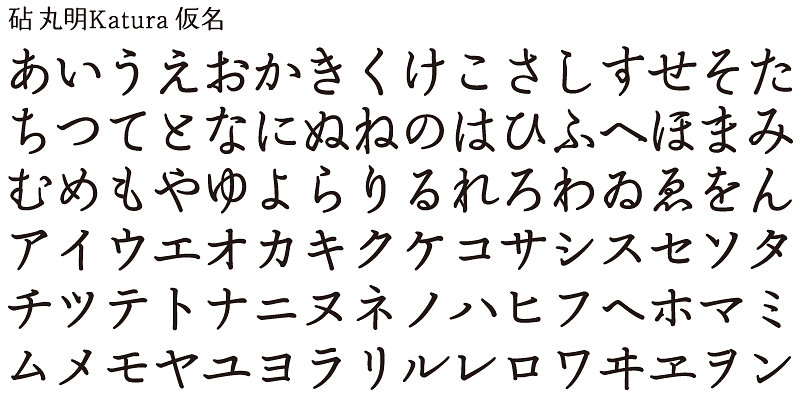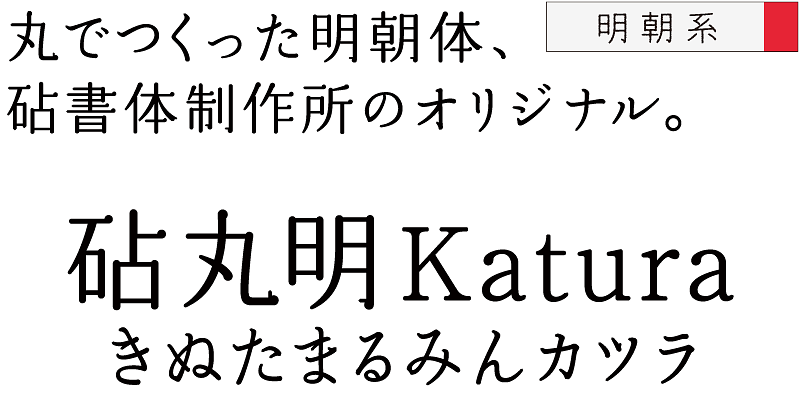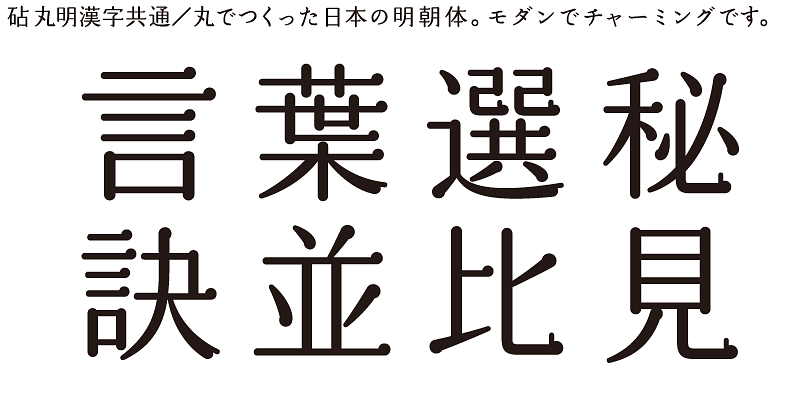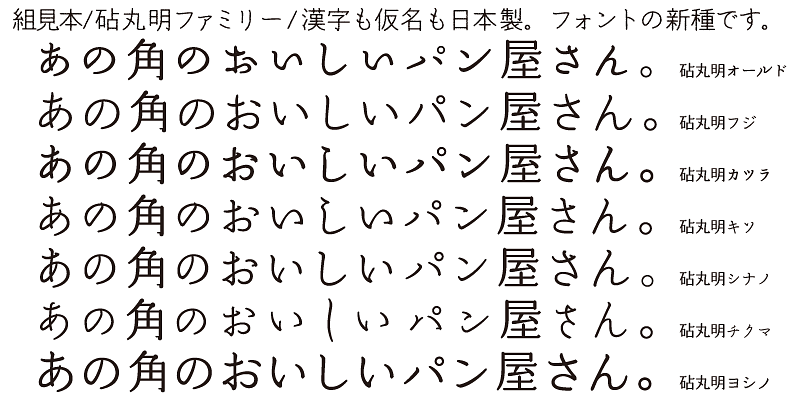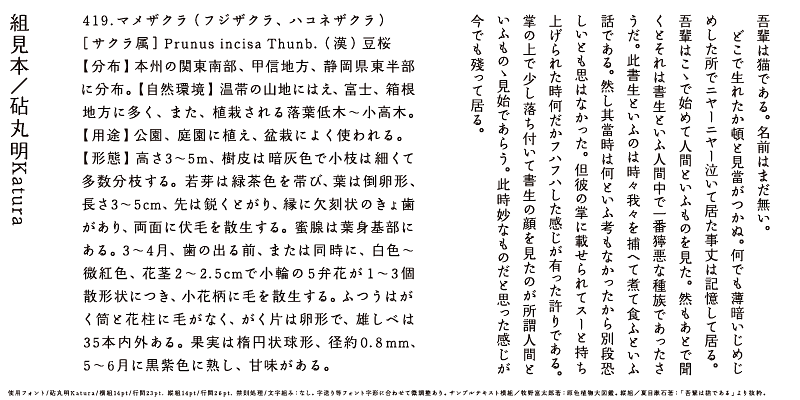
The kana character design of MaruminKaruta is based on the traditional Regular Script calligraphic style and its brush strokes. Its stately letter form gives a foundation of elegance and tradition, while its quick brush strokes bring sharpness and strength.
The same Ideographic (kanji) characters are shared by all the Marumin variations. The design of kanji characters of Marumin is based on the Mincho type style in Japan, but it has stroke elements with rounded features. The terminals of its horizontal and vertical strokes, dots, tome and harai stroke shapes are all rounded. Marumin establishes a new category of “Rounded Minchotai” with seven kana variations in total.
One characteristic of the Japanese language is that it has kana syllabic characters. Kana characters were invented in Japan to represent sounds in Japanese and translate texts imported from China into Japanese. Kana characters are needed to create Japanese words and expressions from kanji/Chinese ideographic characters. While there may be ambiguities, these words and expressions exhibit the warmth and gentleness of the lives of people living in the small and densely populated land of Japan.
Kinuta Font Factory’s believes that kana characters are the origin of written words in Japanese, and we think that improving kana characters will make Japanese text more attractive. On average, 60% of Japanese text consists of kana characters – changing the shape of these characters changes the visual appearance of the text. The possibilities for typographic expression using simple, dynamic and curvilinear kana characters are vast, and the richness of Japanese text depends on kana characters. This is the reason why Kinuta Font Factory offers many variations of kana typefaces.